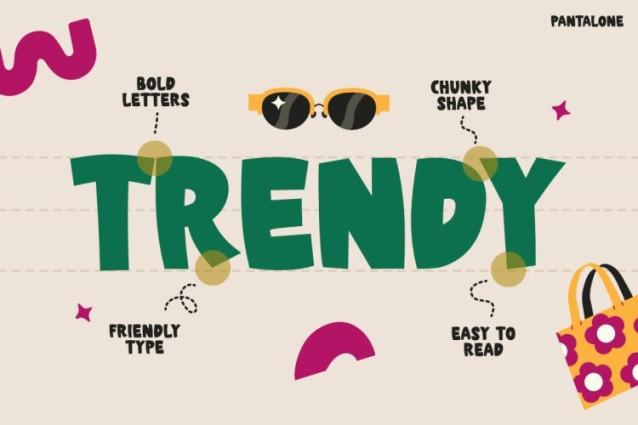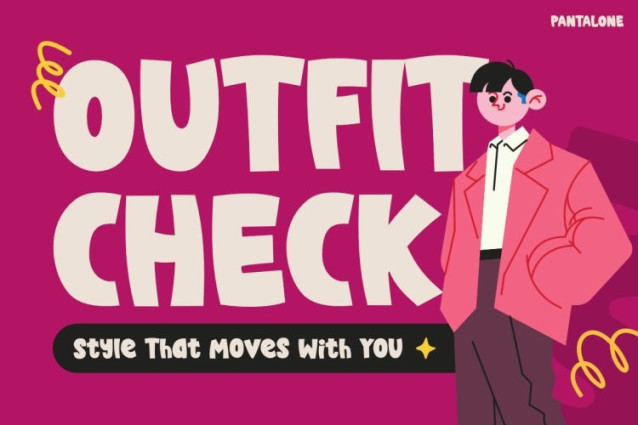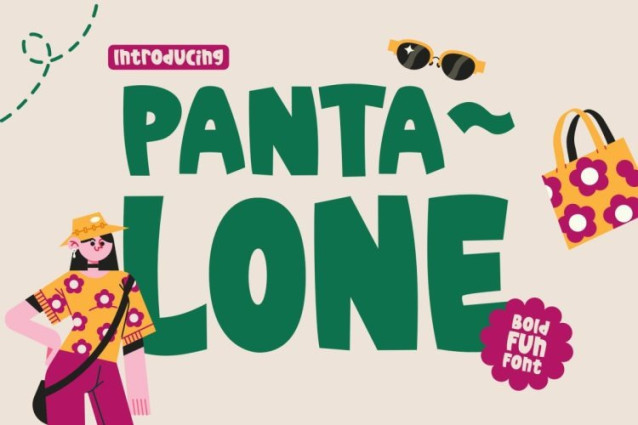
Pantalone Font
Pantalone Font is a cheerful, bold display font designed to bring playful confidence into every design. From the very first look, it delivers a friendly and trendy personality through thick strokes, rounded corners, and slightly irregular shapes. These features give the font a handmade feel while keeping it clean and readable. Kids Font Pantalone stands out because it feels modern yet fun, making text look energetic without becoming overwhelming. Its strong letterforms help messages stay clear, even in busy layouts. At the same time, the playful proportions add charm and warmth. This balance between aesthetics and function makes the font both eye-catching and practical for daily creative use.
Pantalone is built for bold display purposes where clarity and personality matter. It works especially well for headlines, posters, branding, and packaging. The font includes uppercase letters, numbers, and essential punctuation. Because of this, it supports a wide range of design needs. Its chunky and friendly style creates a positive tone that feels approachable and confident. In addition, the smooth curves and solid structure make it easy to read at large sizes. Kids Font Pantalone performs well across print and digital media. It adapts naturally to colorful designs, fashion visuals, and lifestyle content. As a result, it helps brands communicate fun ideas with strong visual impact.
Suitable For
Kids Font Pantalone is perfect for designers, brand owners, and content creators who work with kids and playful themes. It is ideal for children’s clothing brands, toy packaging, and fashion promotions. Moreover, it suits posters, banners, and in-store displays. Social media designers can use it for Instagram posts, ads, and thumbnails. Educators and small businesses can also rely on it for friendly communication. Anyone who wants typography that feels bold, trendy, and joyful will benefit from this font.